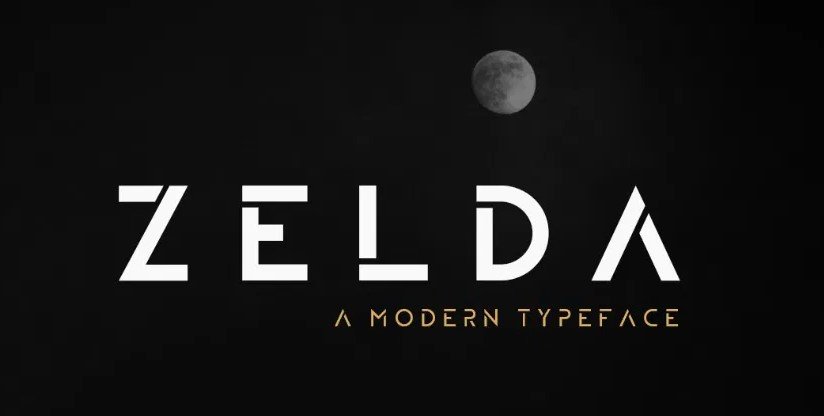
Sharing with you the modern and minimal display typeface with you that is Zelda Font which has classical sans serif typeface, the font is best for making logos, posters, banners, and much more awesome other graphic related stuff can also be made with this font.
The font contains a catchy look and elegant display texture which will make awesome your projects and will give you top rating from your clients also. The font supports multilingual also for designing in any language.
View Of ZELDA Font
This typeface that have catcy look have lots of huge glyphs including uppercase and lowercase letters. Let’s view the picture below to see the sample.
| Designer | Jabir J3 |
What Type of Font Is ZELDA?
The ZELDA Font is the famous and amazing typeface which was product of Jabir J3.